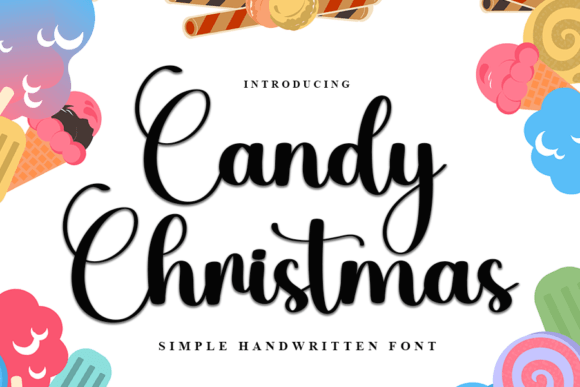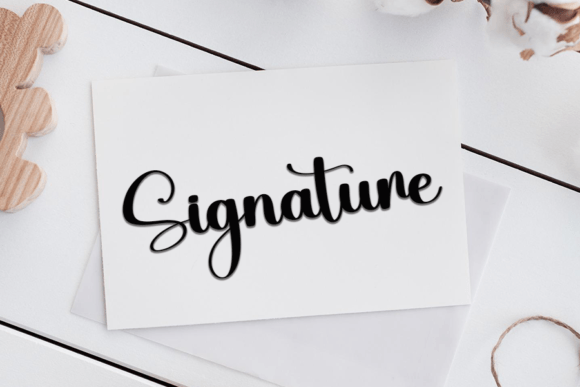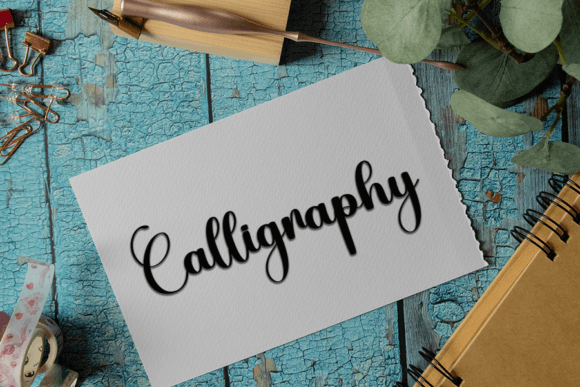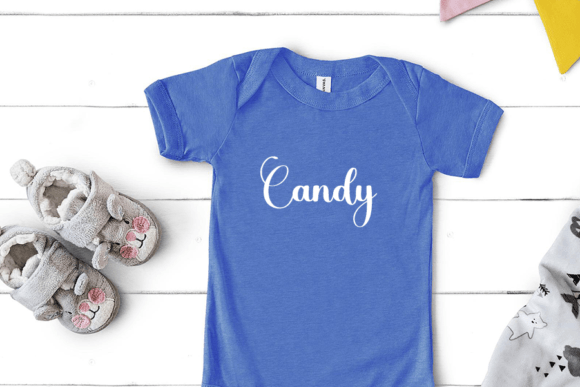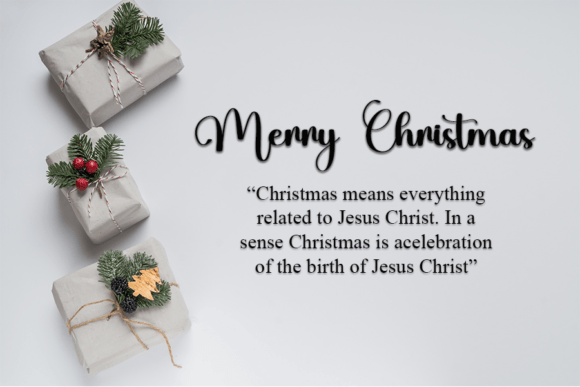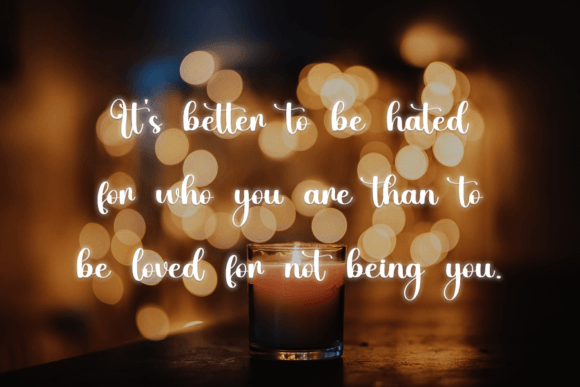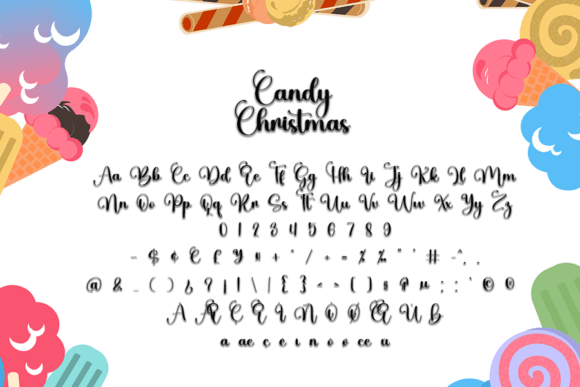
Have you ever been rummaging through your craft supplies, only to stumble upon a forgotten scrapbook or a box of old stickers that instantly sparks a wave of creative ideas? For designers, these moments of serendipity can be the perfect catalyst for something truly unique and special.
Take, for instance, the delightful Candy Christmas Font, a delicate handwritten font that’s as charming as it is versatile. Crafted with love and care, this font is perfect for adding a touch of whimsy to your designs, from handwritten letters and invitations to food product labels and titles. Whether you’re a seasoned pro or a budding designer, the Candy Christmas Font is sure to bring a smile to your face and a dash of magic to your work.
Candy Christmas Font Key Features
- Unique Characteristics: The Candy Christmas Font features a unique blend of playful and festive elements, including intricate details, ornaments, and swashes, making it perfect for holiday-themed designs.
Candy Christmas Font Review
I recently had the chance to try out the Candy Christmas Font, and I’m here to share my honest thoughts.
- The font is super festive and perfect for any holiday-themed project, especially Christmas designs.
- The bold and playful characters are easy to read, even at smaller font sizes.
- The font supports a wide range of languages, including Latin, Cyrillic, and Greek alphabets.
- The font’s design can be overwhelming for some projects, especially if you’re going for a more minimalist look.
- The bold characters can be difficult to use in small spaces, such as on business cards or social media graphics.
- The font is not suitable for use in formal or professional contexts, due to its playful and festive nature.
Overall, I think the Candy Christmas Font is a fun and creative option for holiday-themed designs. However, it may not be the best choice for every project. With its limitations in mind, it’s perfect for designers who want to add a touch of whimsy and playfulness to their designs.
For the most festive look, pair the Candy Christmas Font with bright colors and bold graphics. Use it for holiday-themed posters, greeting cards, and social media graphics. You can also use it for gift tags, party invitations, and other holiday-related designs. Experiment with different font sizes, colors, and effects to create a unique and eye-catching design.
Alternatives to Candy Christmas Font
Great Vibes is a beautiful, handwritten font perfect for creating a whimsical and festive atmosphere. It’s ideal for designs that require a touch of elegance and sophistication. Compared to Candy Christmas Font, Great Vibes has a more refined and polished look, making it suitable for a wider range of design applications.
Q: What is the recommended font size for optimal readability with the Candy Christmas Font?
The recommended font size for optimal readability with the Candy Christmas Font is between 12-14 points. However, this may vary depending on the specific application and design requirements. Experiment with different font sizes to find the perfect balance for your design.